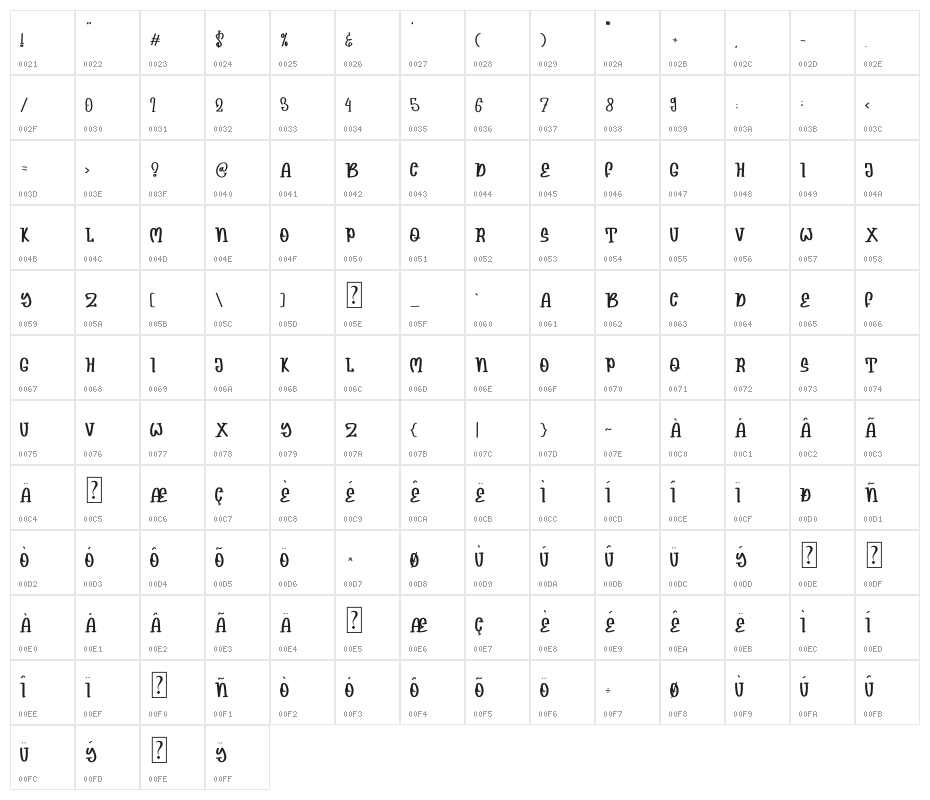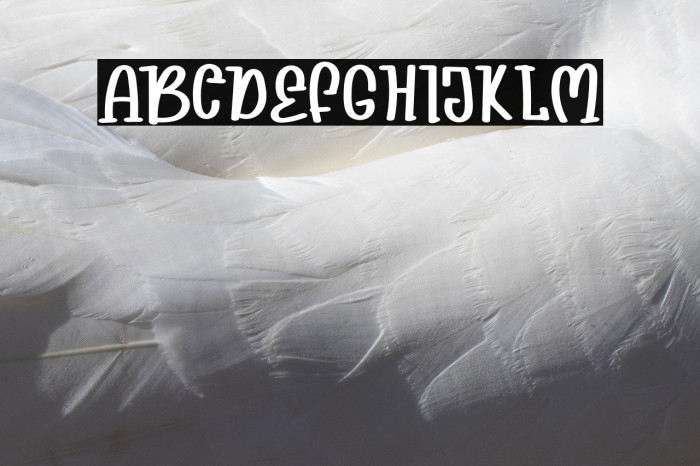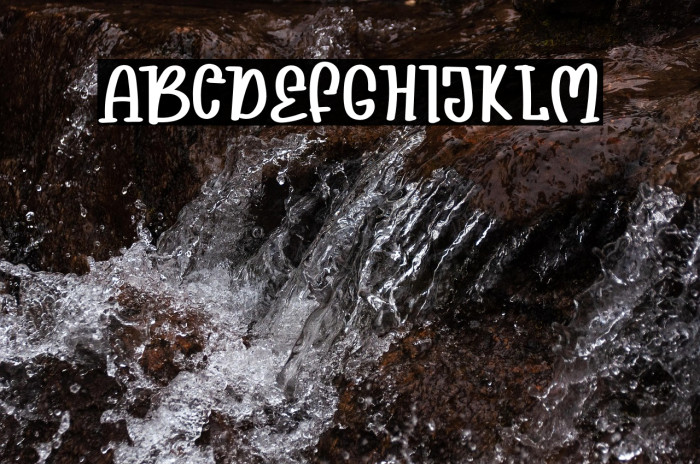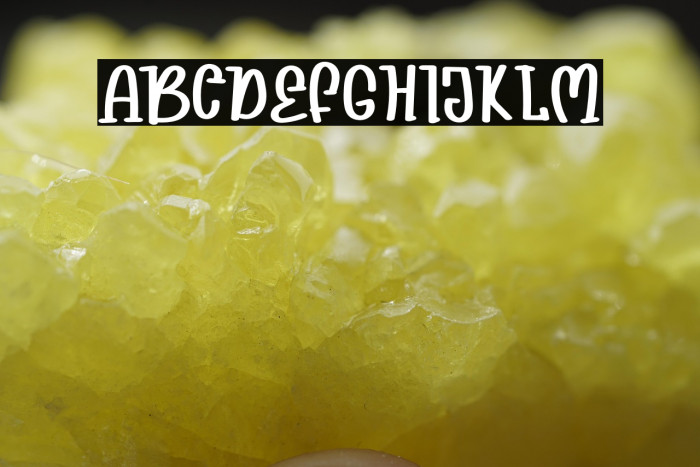
Lemonnes Font
Lemonnes Description
This font features a playful and whimsical design, characterized by its bold and rounded letterforms. The strokes are thick and consistent, giving it a strong presence on the page. The uppercase and lowercase letters share a similar style, with slight variations in curvature and stroke endings that add a touch of uniqueness. The numerals are equally bold, maintaining the playful aesthetic. Special characters are designed to match the overall style, ensuring a cohesive look. This font is ideal for projects that require a fun and engaging appearance.
| Proposed Projects | Ideal for children's books, playful branding, posters, and greeting cards. |